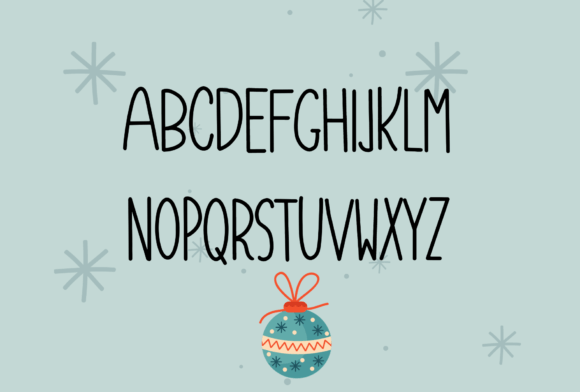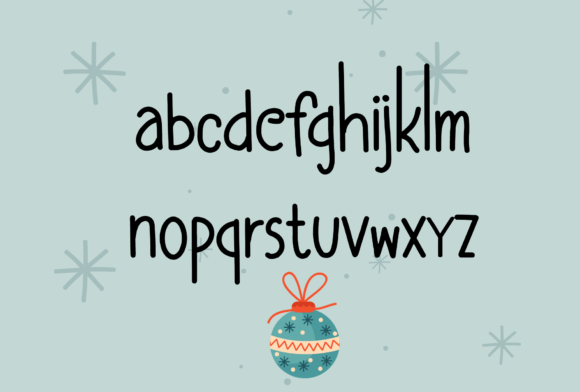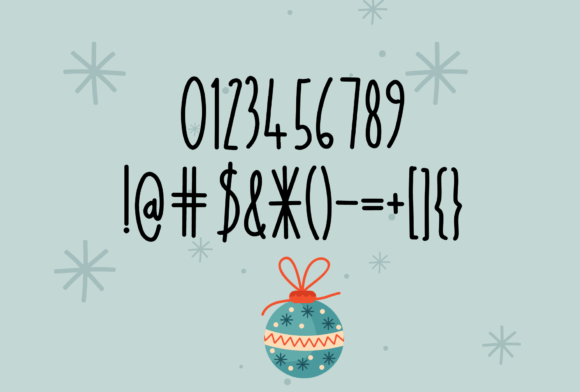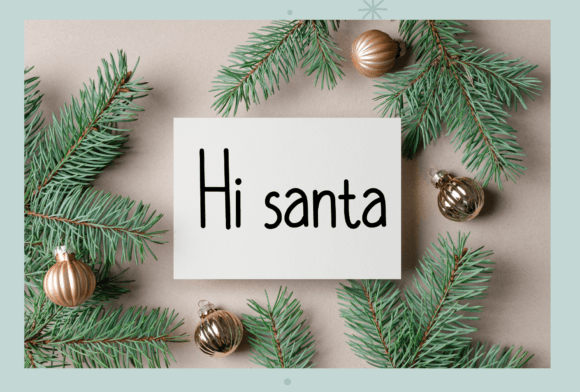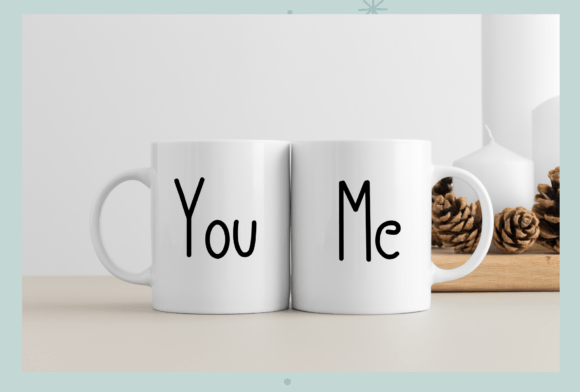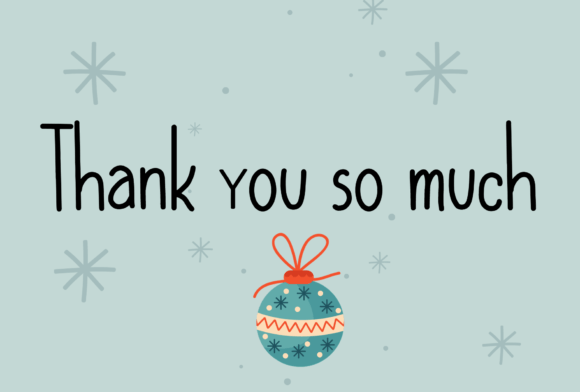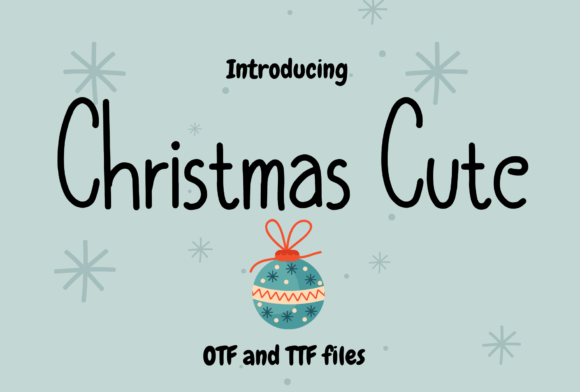
Introducing Christmas Cute Font: The Perfect Choice for Your Creative Projects
Are you looking for a font that can add a touch of warmth and playfulness to your designs? Look no further than Christmas Cute Font! This exceptionally adorable handwritten font is designed with a delightfully simple style, making it perfect for a wide range of applications, from educational materials and presentations to advertising and illustrations.
What Makes Christmas Cute Font So Special?
Christmas Cute Font is more than just a font – it’s a way to add personality and charm to your designs. Its simple yet adorable style makes it perfect for:
- Educational materials: Add a touch of fun and playfulness to your teaching resources, worksheets, and activity sheets.
- Presentations: Make your presentations more engaging and memorable with a font that’s both cute and easy to read.
- Advertising: Use Christmas Cute Font to create eye-catching ads that will capture the attention of your target audience.
- Illustrations: Add a personal touch to your illustrations and make them more relatable and endearing.
Why Choose Christmas Cute Font?
Here are just a few reasons why Christmas Cute Font is the perfect choice for your creative projects:
- Unique and playful style: Christmas Cute Font has a one-of-a-kind style that’s sure to stand out from the crowd.
- Easily readable: The font is designed to be easy to read, making it perfect for body text and headings.
- Versatile: Use Christmas Cute Font for a wide range of applications, from digital projects to print materials.
- High-quality: The font is carefully crafted to ensure that it’s of the highest quality and looks great in any context.
How to Use Christmas Cute Font in Your Designs
Using Christmas Cute Font in your designs is easy! Here are a few tips to get you started:
- Pair it with other fonts: Combine Christmas Cute Font with other fonts to create a unique and interesting contrast.
- Experiment with colors: Try out different colors and color combinations to find the perfect look for your design.
- Add graphics and illustrations: Use Christmas Cute Font in combination with graphics and illustrations to create a visually appealing design.